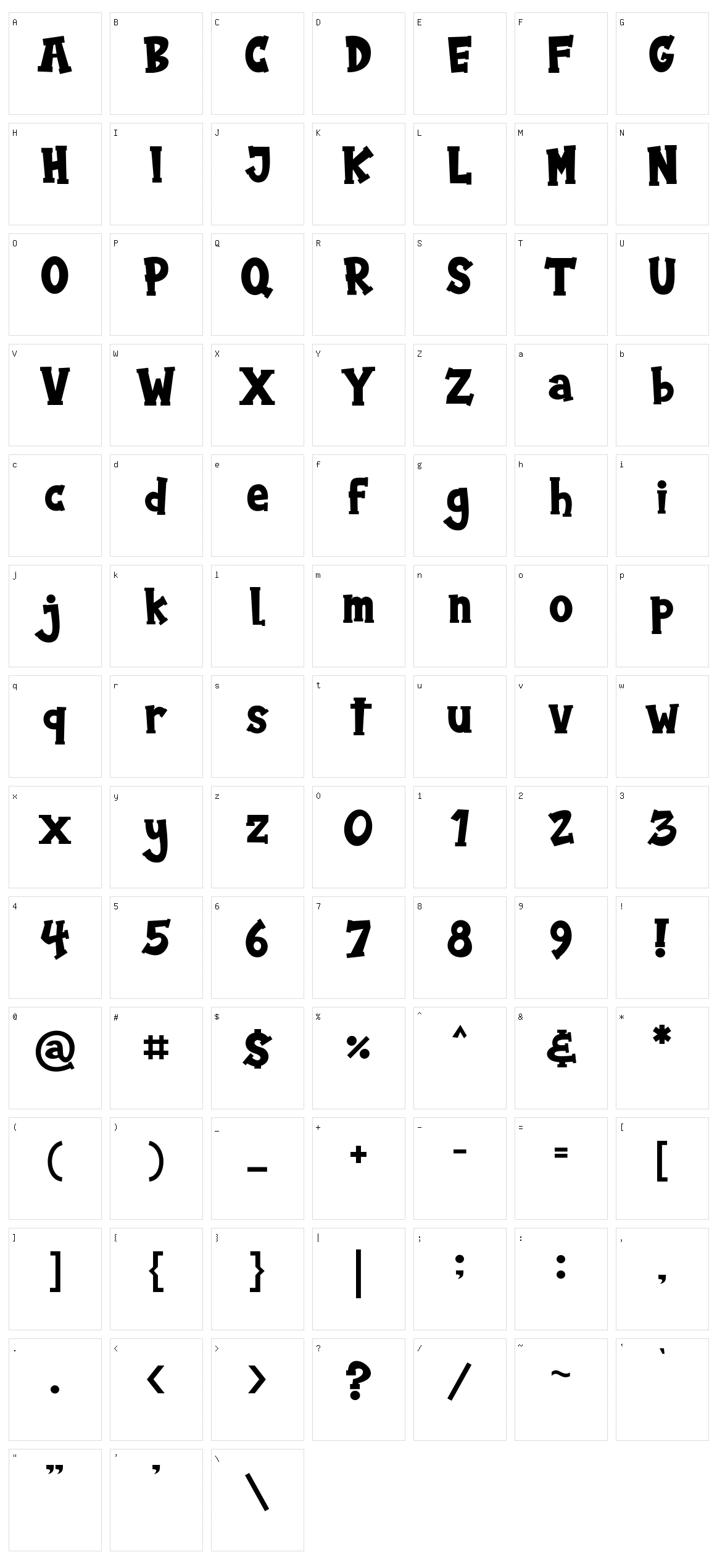
The free font Pirate Kids is carefully designed by Fachranheit, showcasing a thoughtful balance of creativity and usability and falls under the Cartoon font style. When you download the ZIP file, it contains only 23.85 KB of font files, making it lightweight and quick to download. Please review the license details below to understand permitted usage and distribution rights. If license information is not available, we recommend using this font for personal projects only or contacting the author directly for commercial usage permissions.